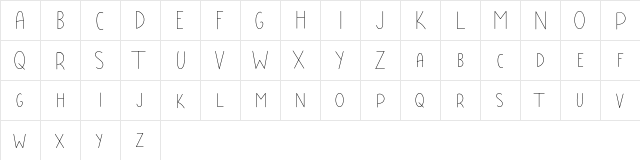
Baby Boss Regular Font Preview
Baby Boss Regular
Design Context for Baby Boss Typeface
Baby Boss takes a measured approach to typography — its balanced proportions and neutral character make it a reliable workhorse for both digital and print work.
Pro Tip: Use Baby Boss in both headline and body roles to test its range before committing to a single application.